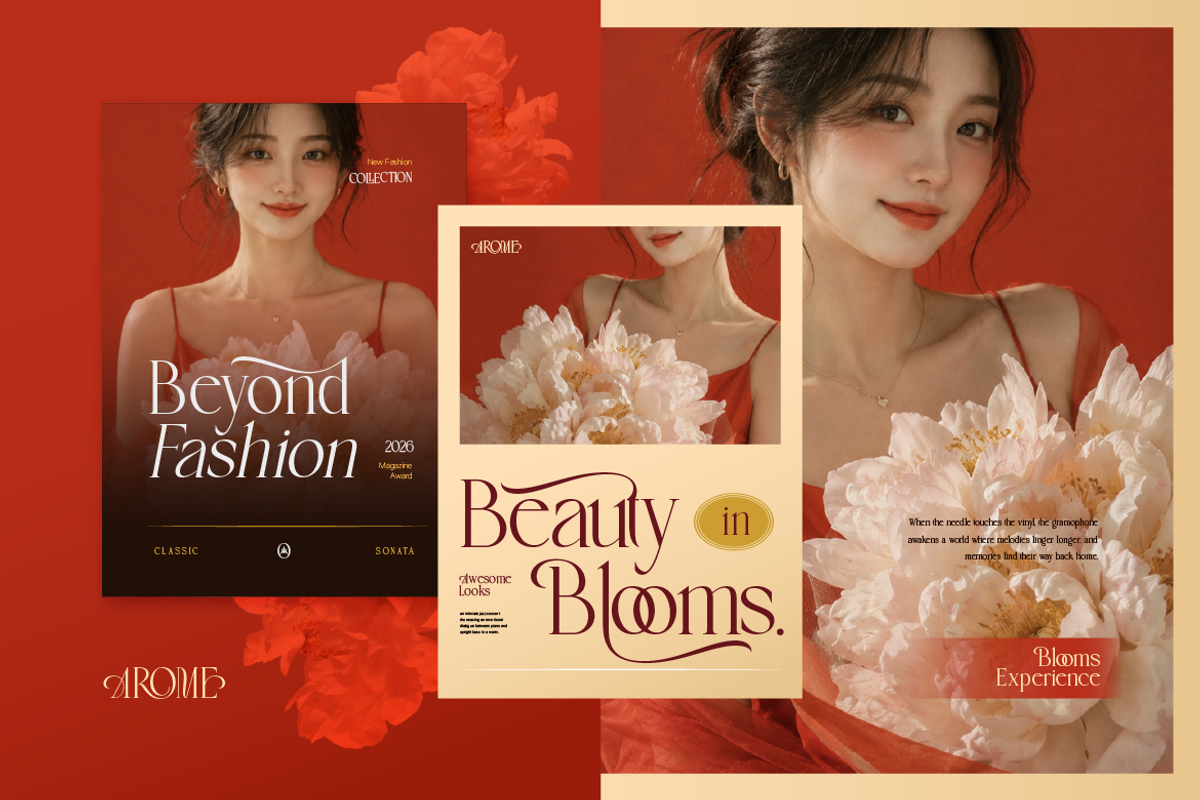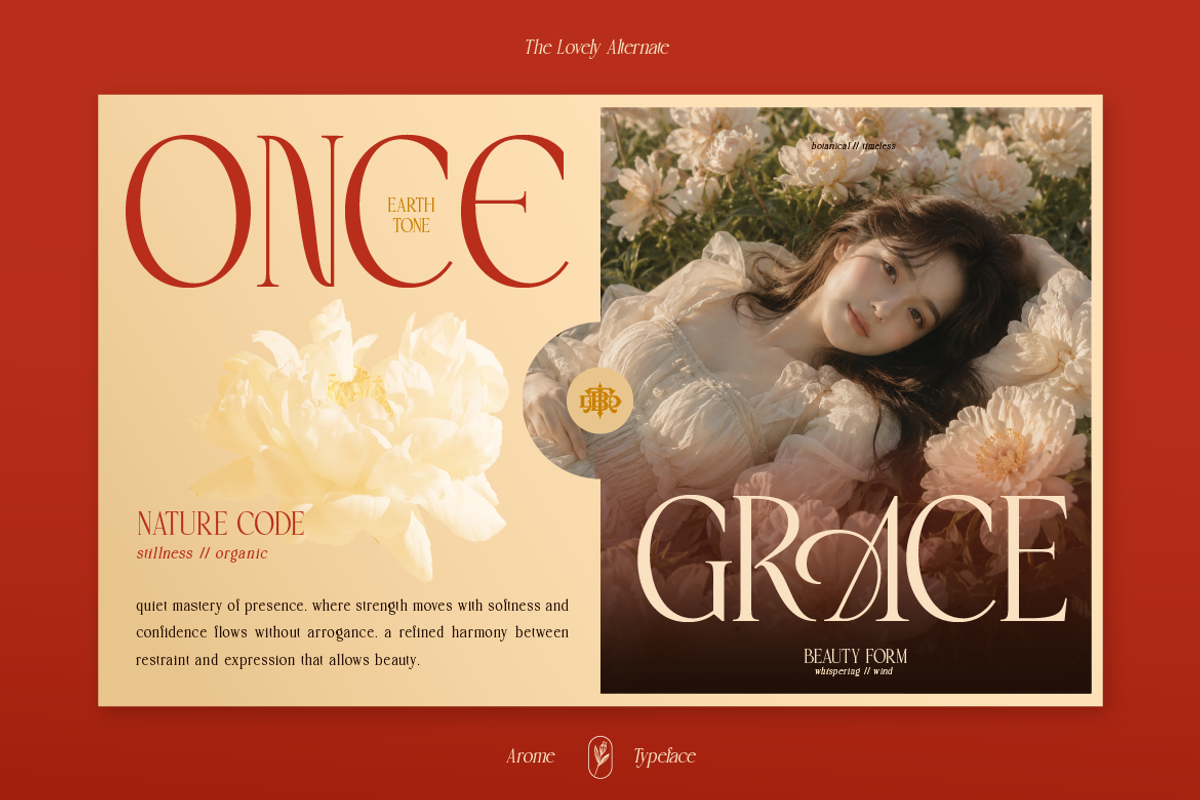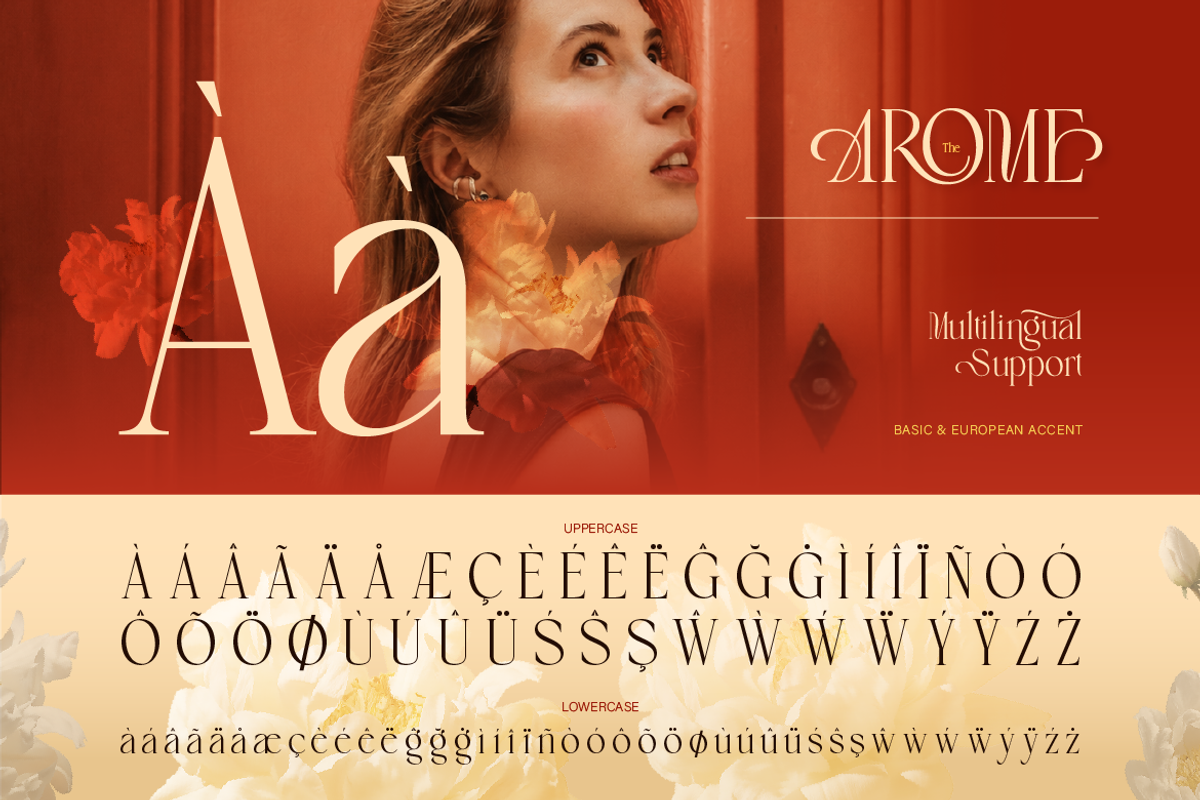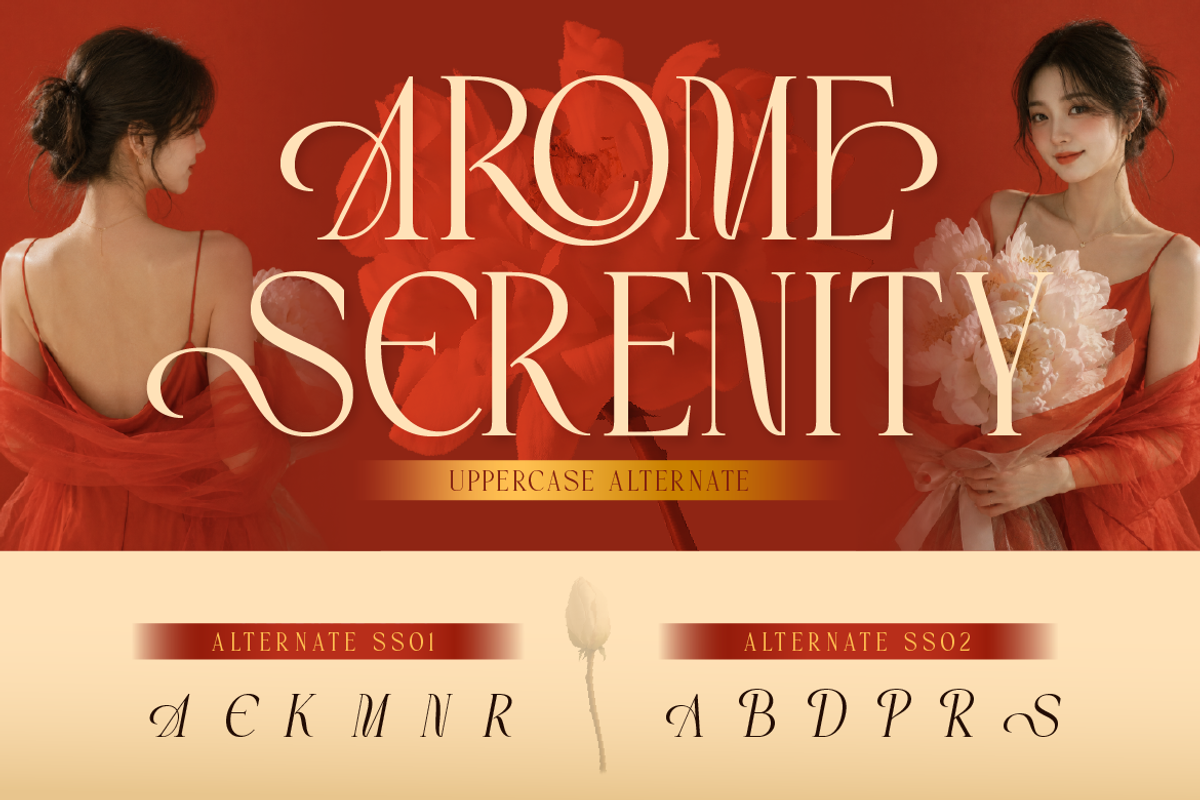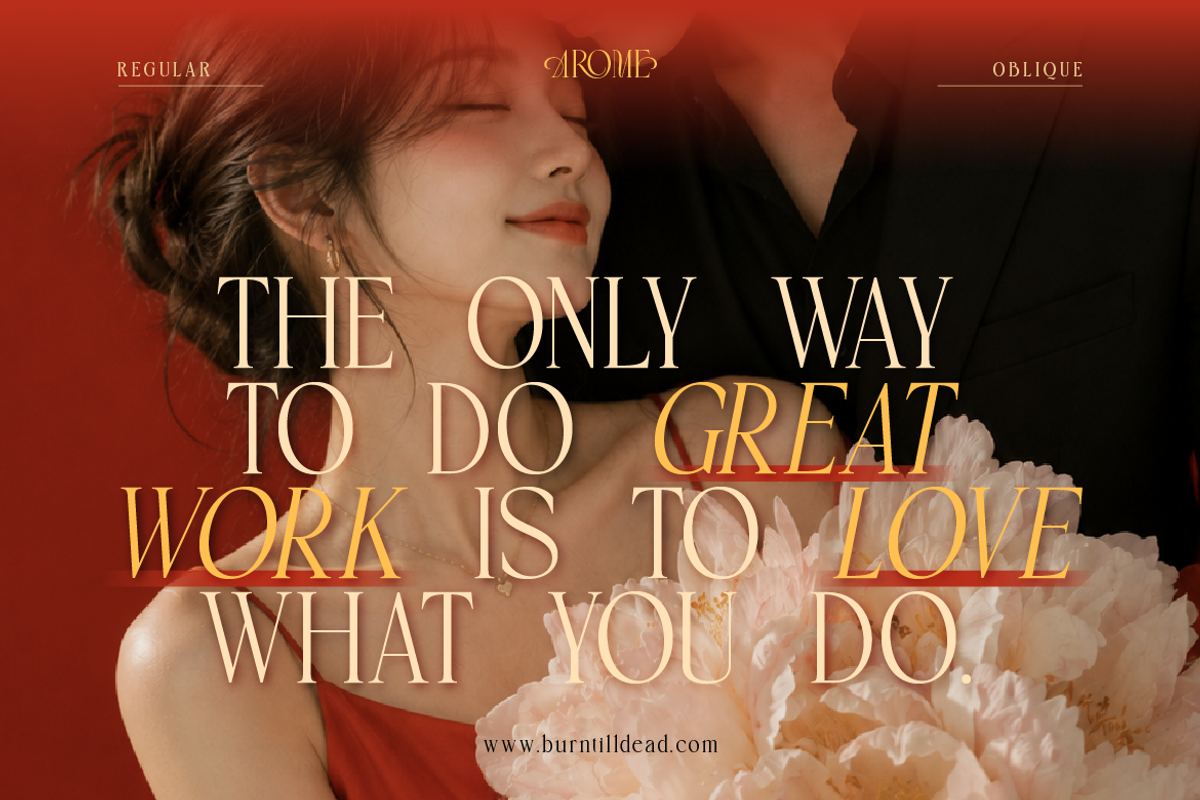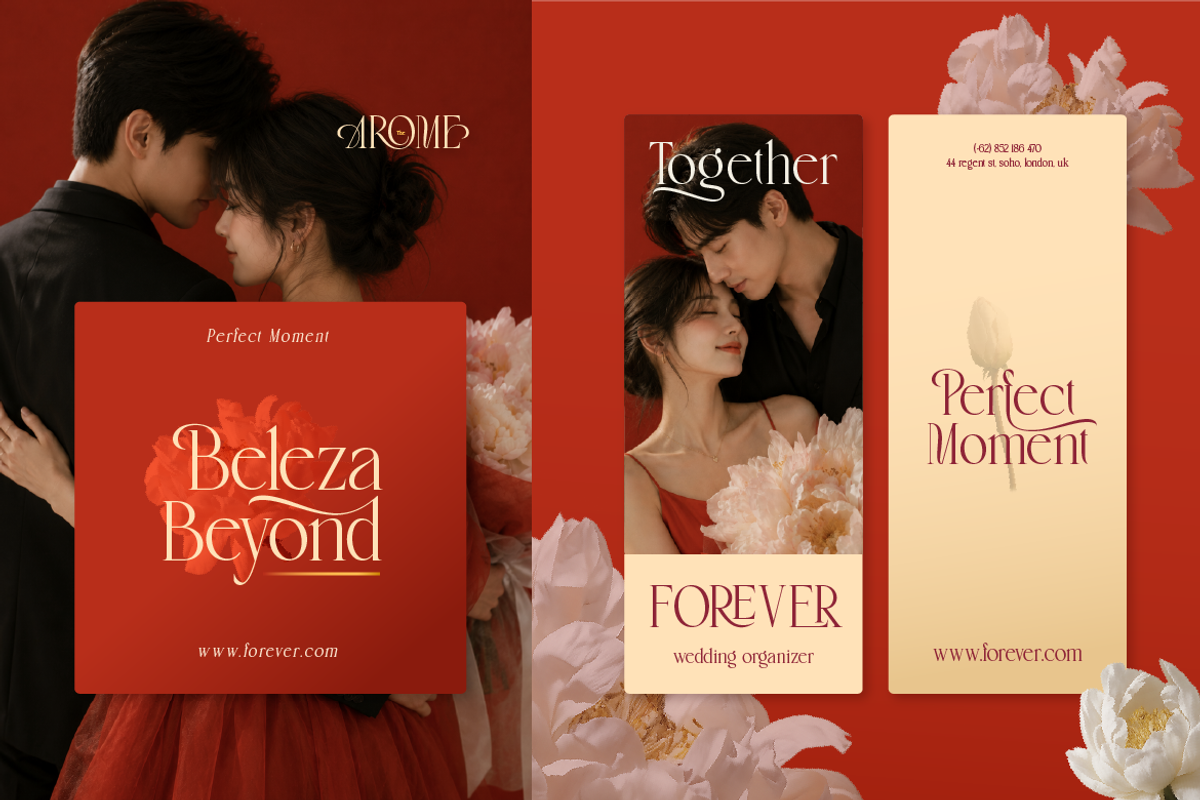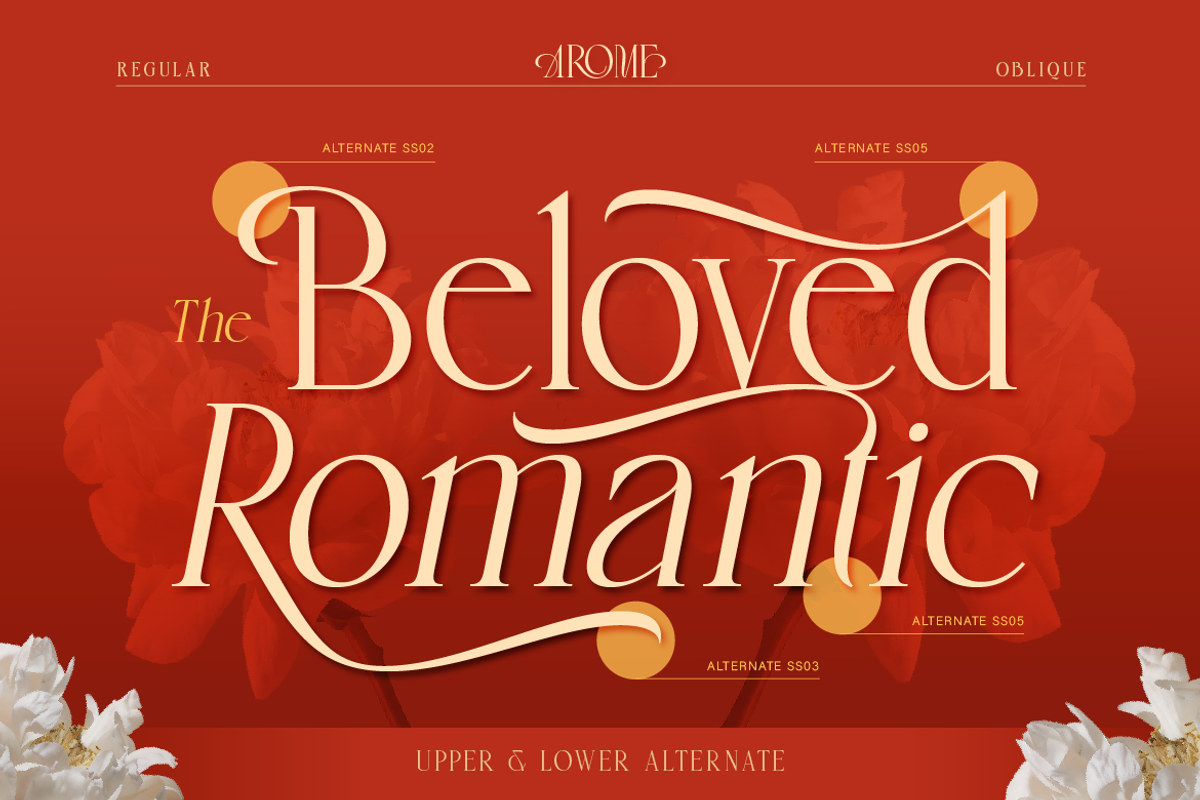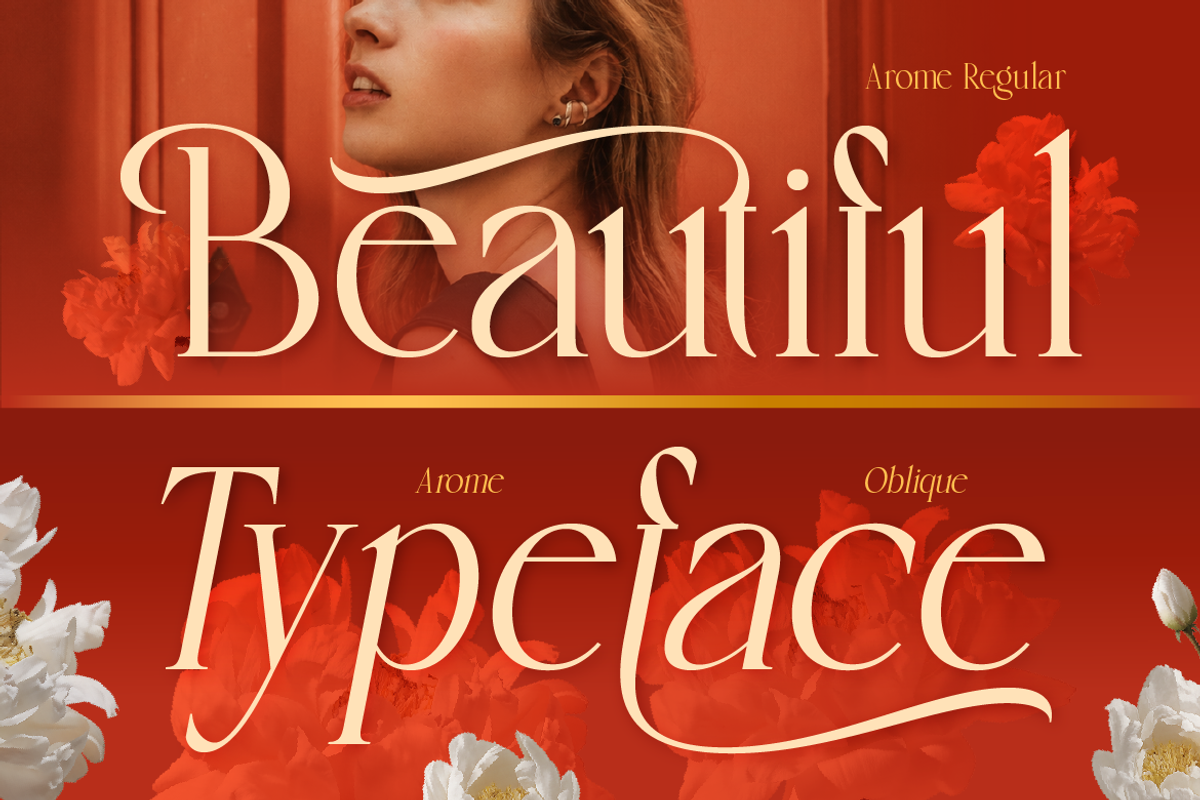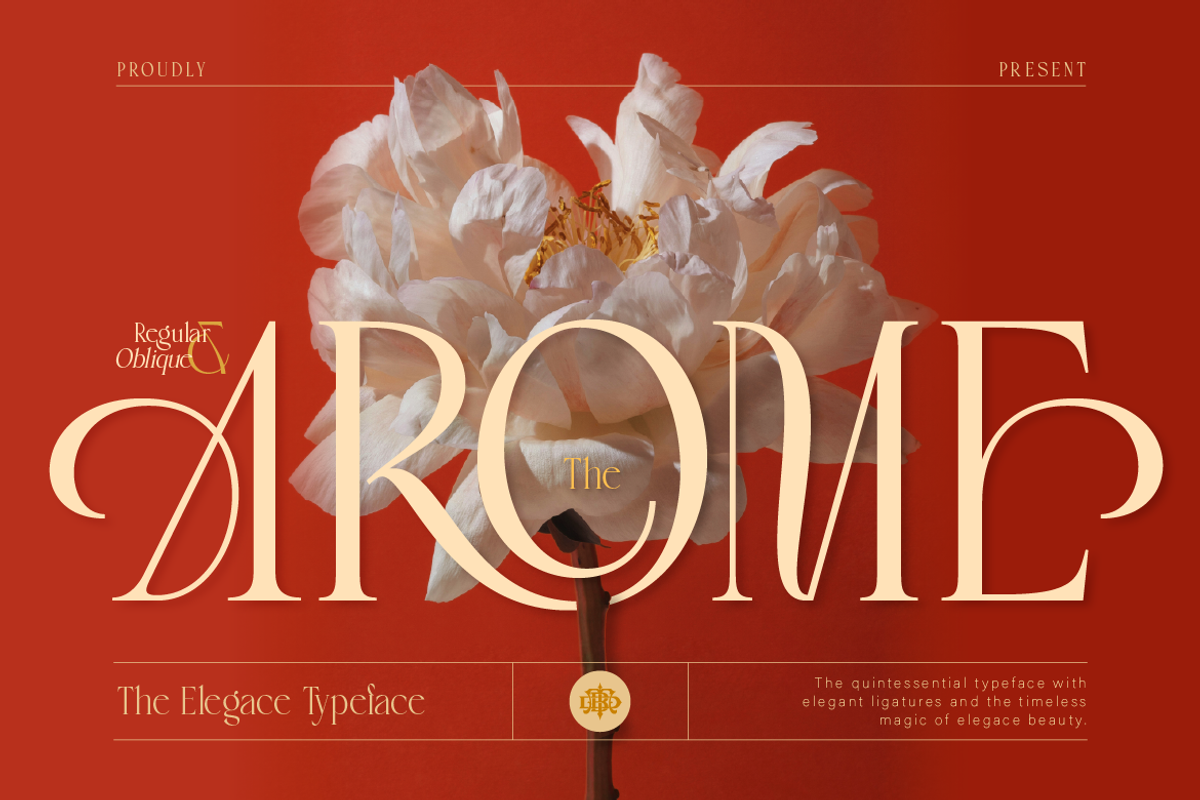
Arome
Arome is a refined serif typeface designed to bring a sense of elegance, romance, and timeless beauty into your work. With its graceful curves, high contrast strokes, and delicate details, Arome creates a luxurious look that feels both classic and modern.
This typeface comes in Regular and Oblique styles, giving you the flexibility to create designs that feel polished, expressive, and full of character. Whether you're going for something soft and feminine or bold and editorial, Arome adapts beautifully.
What makes Arome stand out is its stylish ligatures and carefully crafted alternates, allowing you to create unique, high-end typography with ease. Every letter is designed to flow naturally, making your text look effortlessly elegant.
Luxury branding & logos
Wedding invitations
Fashion editorials & magazines
Beauty and lifestyle designs
Packaging design
Social media content
Headlines & display typography